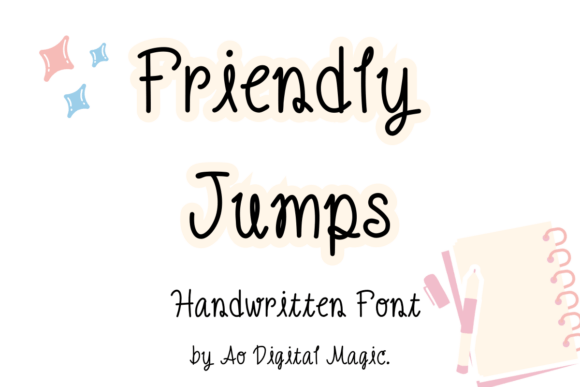
Introducing Friendly Jumps Font: The Perfect Handwritten Companion for Your Creative Projects
In the world of digital design, the right font can make all the difference in bringing your creative projects to life. If you’re on the hunt for a charming and neat handwritten font that can elevate your visual content, look no further than Friendly Jumps. This delightful font is designed to add a personal touch to your social media posts, digital planners, crafting projects, and more. In this article, we’ll dive into the features and benefits of Friendly Jumps Font, and explore how it can become your go-to companion for all your creative endeavors.
The Charm of Friendly Jumps Font
At first glance, Friendly Jumps Font exudes a sense of warmth and approachability. Its handwritten style is carefully crafted to convey a feeling of friendliness and familiarity, making it perfect for designers who want to create a personal connection with their audience. The neat and clean lines of this font ensure that your text remains highly legible, even at smaller sizes, which is essential for maintaining a professional look across various platforms.
One of the standout features of Friendly Jumps Font is its versatility. Whether you’re working on a social media post, a digital planner, or a crafting project, this font adapts seamlessly to different contexts. Its unique charm can add a decorative touch to your designs, setting them apart from more generic and overused fonts.
Ideal for Social Media Posts
In the fast-paced world of social media, grabbing your audience’s attention is crucial. Friendly Jumps Font can help you achieve just that. Its charming and eye-catching style makes it perfect for crafting engaging social media posts that stand out in crowded feeds. Whether you’re a blogger, influencer, or business owner, this font can help you convey your message in a more personal and relatable way.
Imagine using Friendly Jumps Font for your Instagram captions, Facebook posts, or Twitter updates. The font’s friendly demeanor can help soften your brand’s voice, making your content feel more approachable and less like a hard sell. This can be particularly effective for brands aiming to build a strong and loyal community around their products or services.
Perfect for Digital Planners and Crafting Projects
For those who enjoy planning and organizing their lives, digital planners have become an essential tool. Friendly Jumps Font can add a delightful touch to your digital planner designs, making them more visually appealing and fun to use. The font’s neatness ensures that your layouts remain clean and easy to navigate, while its charm adds a decorative element that can make your planner feel more personalized.
Crafting enthusiasts will also love Friendly Jumps Font for their projects. Whether you’re creating DIY tutorials, crafting patterns, or inspirational quotes for your handmade products, this font can add a warm and inviting feel to your designs. Its versatility means you can use it for a wide range of crafting projects, from paper crafting to knitting and sewing.
Why Choose Friendly Jumps Font?
So, what sets Friendly Jumps Font apart from other fonts in the market? Here are a few reasons why it’s an excellent choice for your creative projects:
- Unique and Eye-Catching: Friendly Jumps Font offers a unique style that can help your designs stand out. Its charm and character ensure that your text doesn’t get lost in the sea of generic fonts.
- Highly Legible: Despite its decorative nature, Friendly Jumps Font remains highly legible, even at smaller sizes. This makes it perfect for a wide range of applications, from social media posts to digital planners.
- Versatile: This font is incredibly versatile and can be used for various projects, including social media graphics, digital planners, crafting projects, and more.
Tips for Getting the Most Out of Friendly Jumps Font
Friendly Jumps Font is a charming and versatile handwritten font that’s perfect for a wide range of creative projects. Its unique style, legibility, and ease of use make it an excellent choice for designers looking to add a personal touch to their work. Whether you’re creating social media posts, digital planners, crafting projects, or anything in between, Friendly Jumps Font can help you achieve your design goals. So why wait? Download Friendly Jumps Font today and start bringing your creative visions to life!